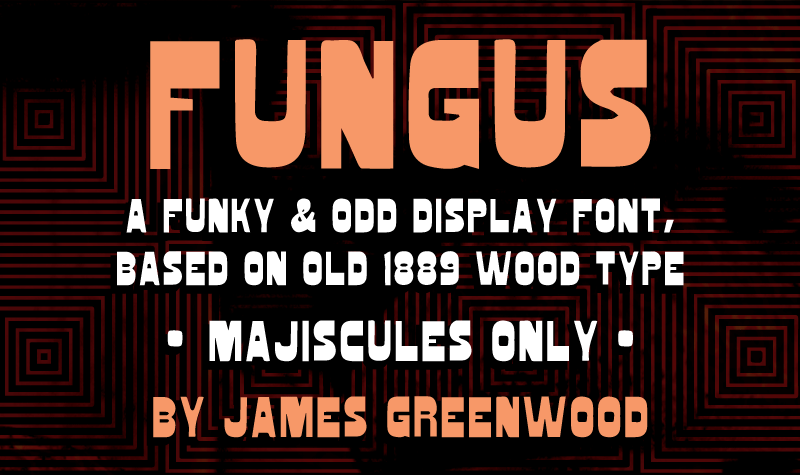
Font name: | Fungus |
Author: | James Greenwood |
Note by James Greenwood | |
This is a funky old display font, based on a 1889 wood type specimen called Gothic Bold from Hamilton. Majiscules only. |